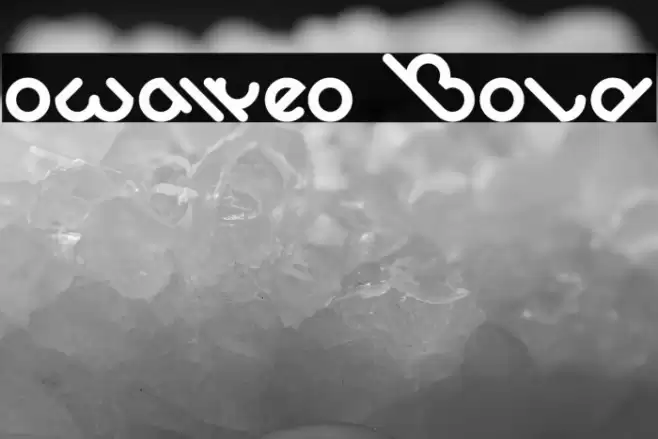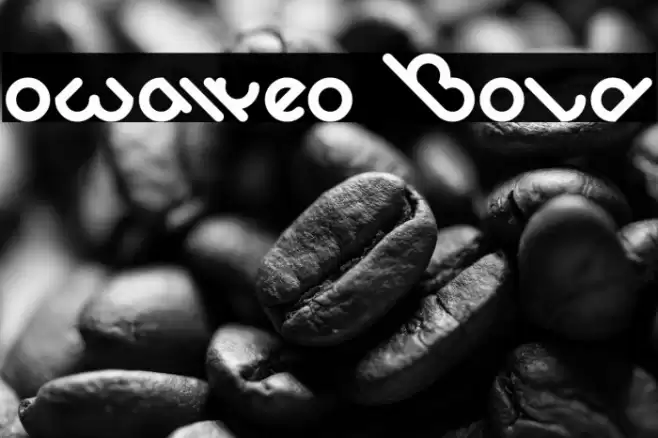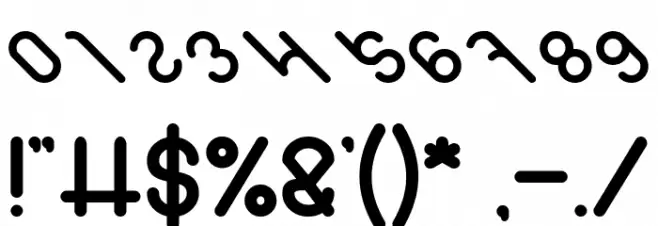
owaikeo Bold Font
owaikeo Bold Description
This font features a bold and playful design with a unique twist on traditional letterforms. Each character is crafted with a continuous, flowing line that creates a sense of movement and rhythm. The letters are rounded and smooth, giving them a friendly and approachable appearance. The uppercase and lowercase letters maintain a consistent style, with the lowercase letters mirroring the playful curves of the uppercase. Numbers and special characters are designed to match the overall aesthetic, ensuring a cohesive look across all text. The font's bold weight and distinctive style make it stand out, making it ideal for creative and eye-catching designs.
A bold, playful font with continuous, flowing lines and rounded characters from Uncategorized fonts.
- Proposed Projects: Ideal for branding, children's books, playful posters, and creative advertising campaigns.
- Overall Style: Playful, Modern